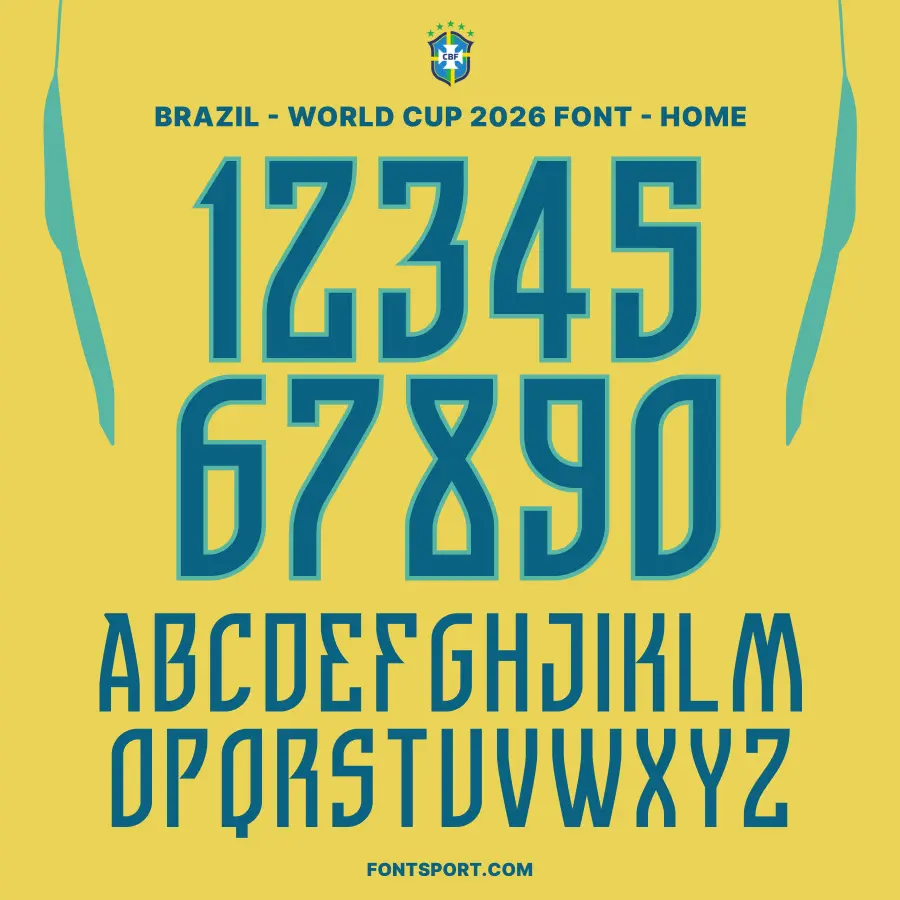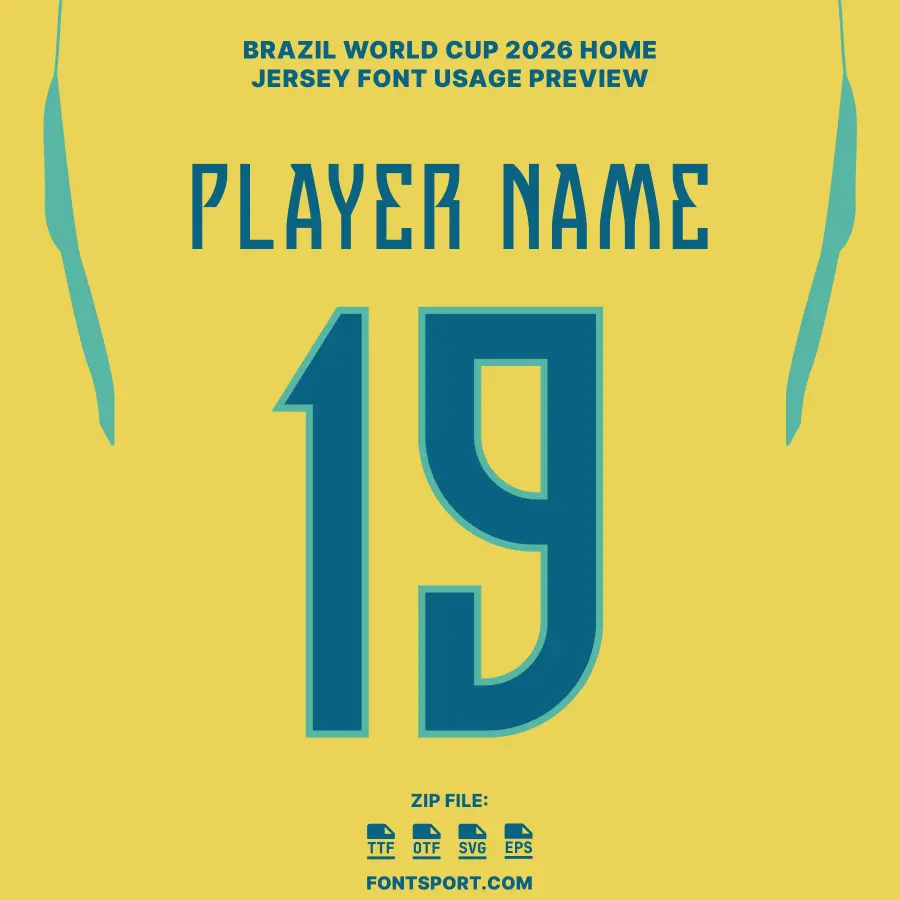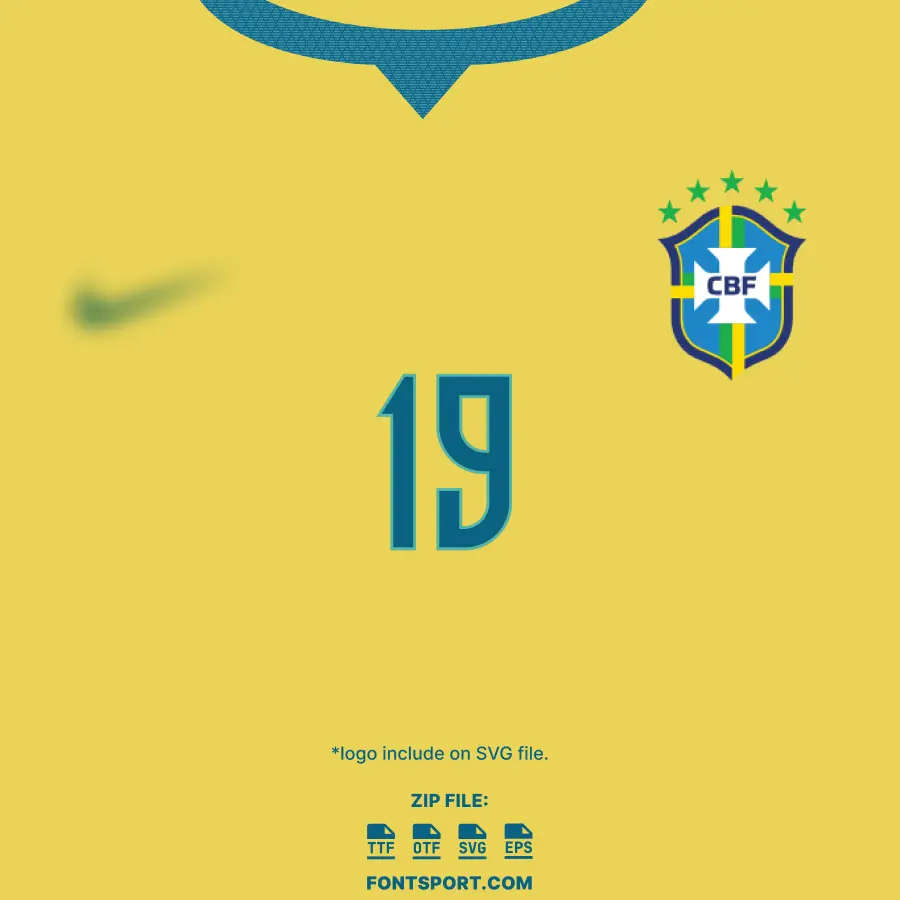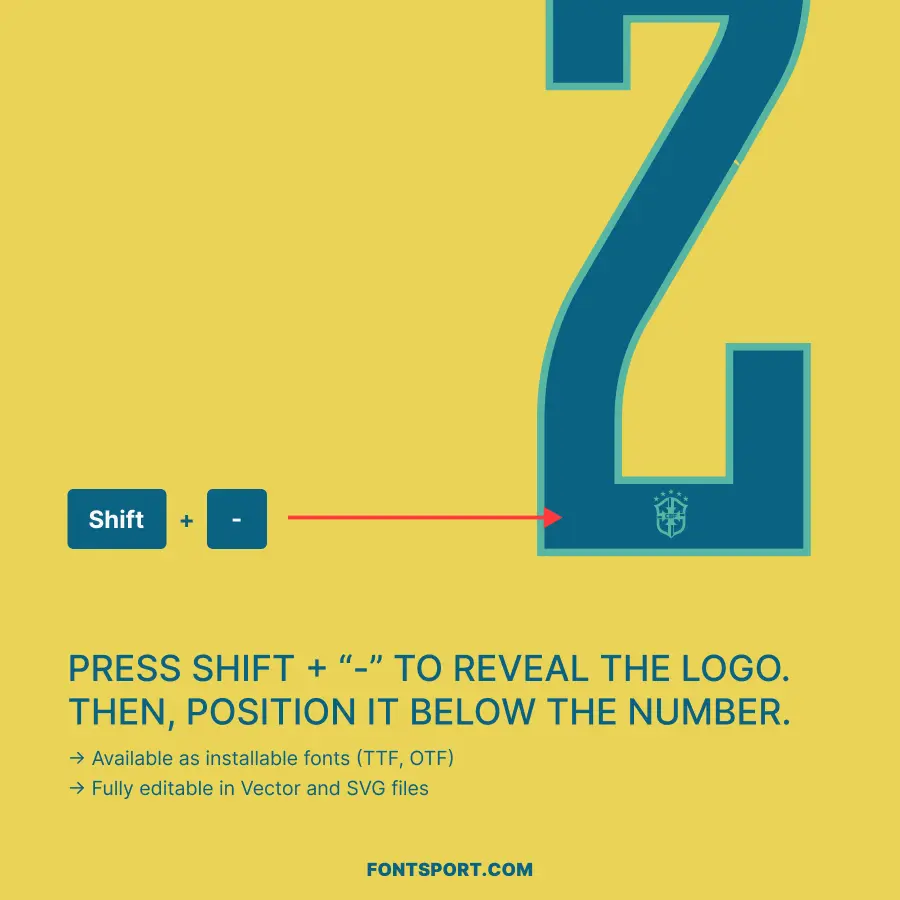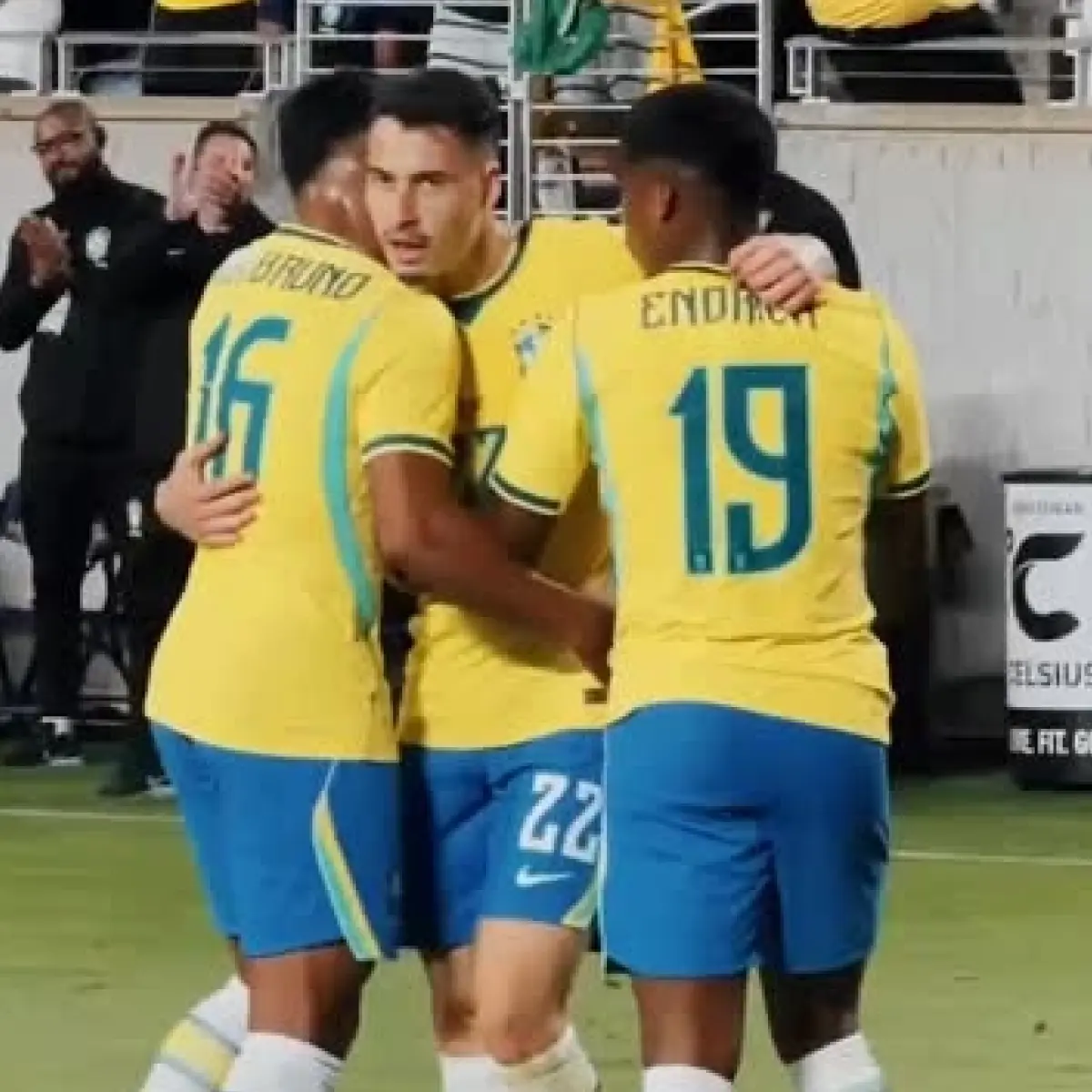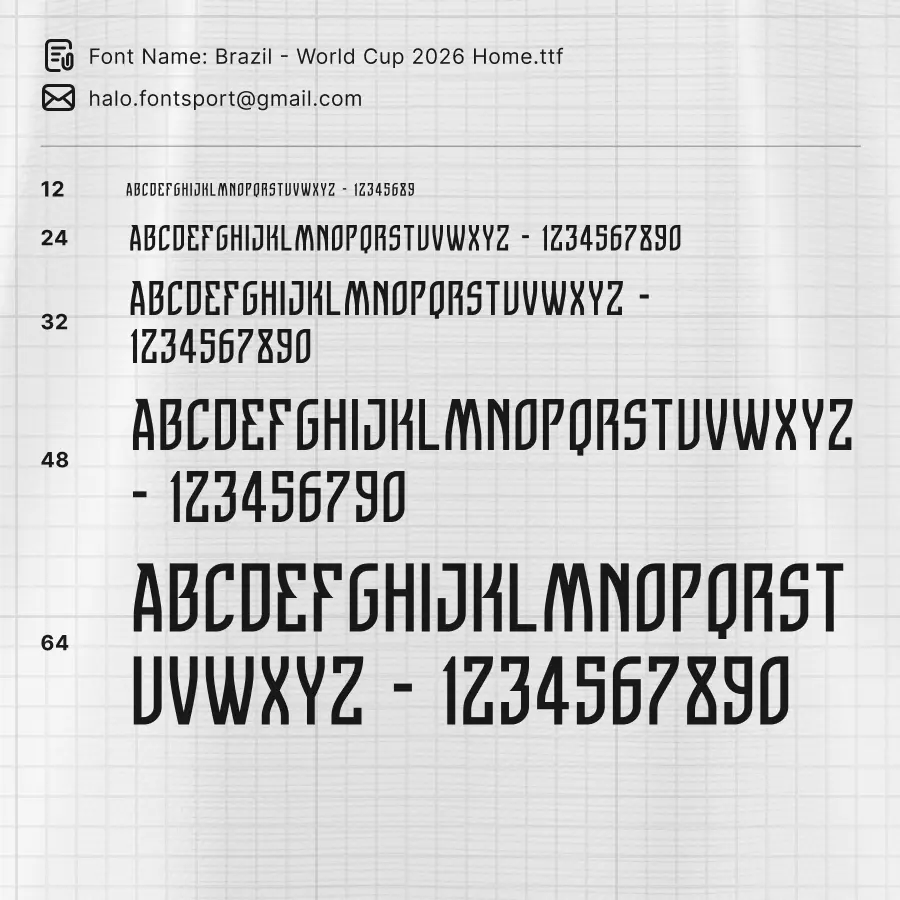
Brazil World Cup Home 2026 Font Kit – Football Typeface
The Brazil World Cup Home 2026 Font Kit brings the prestigious visual identity of the five-time world champions to your creative workstation. This font celebrates the return of the iconic “Yellow Canary” (Amarelinha) with a design that bridges the legendary glory of the 1970 squad and the high-octane energy of the current generation. Featuring a sharp, athletic structure, this typeface stands as the definitive choice for designers looking to capture the “Samba” spirit on and off the pitch.
Complete A–Z uppercase letters with the bold, condensed structure seen on the world stage.
Full 0–9 number set, optimized for high visibility on the back of sports apparel.
1970 Heritage Inspiration: The typography complements a jersey design inspired by the legendary 1970 World Cup team, merging classic vibes with modern lines.
Aero-FIT Ready: The sharp angles of the characters reflect the technical precision and “engineered knit” textures of modern international kits.